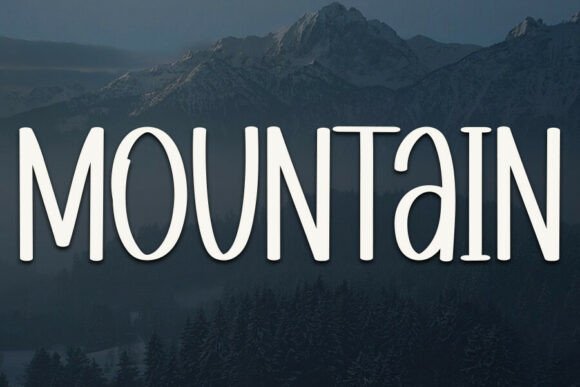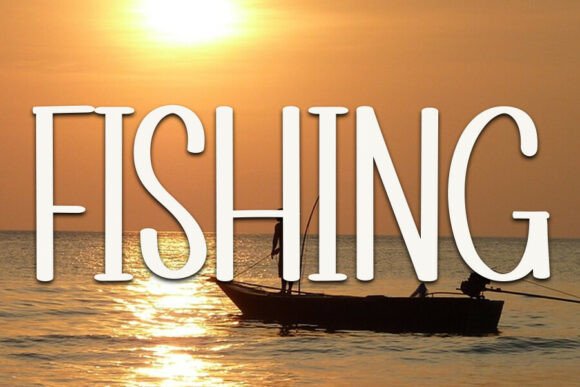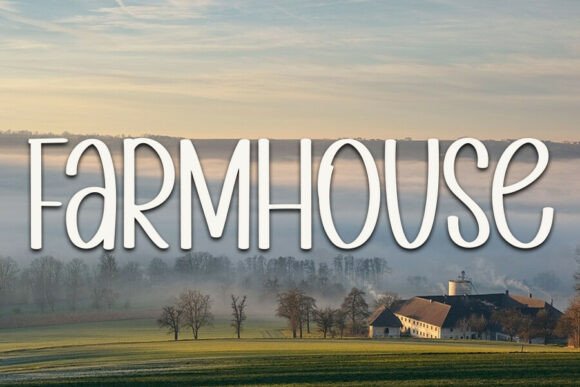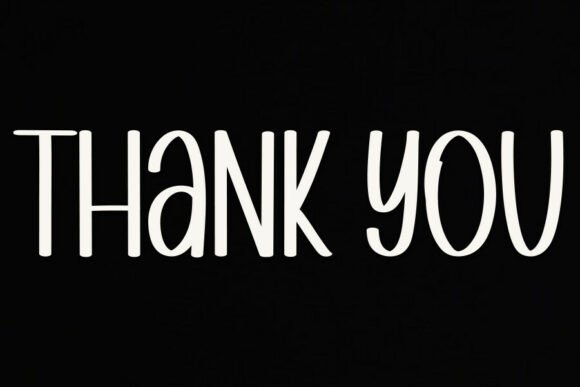
Introducing Cheese Font: The Perfect Blend of Warmth and Authenticity
In the world of typography, fonts play a crucial role in conveying the tone and personality of a brand or design. For designers and crafters looking for a font that exudes warmth, authenticity, and a touch of casual elegance, Cheese Font is an excellent choice. This beautiful, handwritten font is designed to bring a personal and friendly touch to any design, making it perfect for quotes, branding, packaging, and social media posts.
The Charm of Cheese Font
Cheese Font is a casual, handwritten font that boasts smooth strokes, relaxed curves, and naturally balanced letterforms. Its clean and approachable style captures the essence of everyday handwriting, making it an ideal choice for designers who want to add a human touch to their designs. The font’s effortless flow and versatile character ensure that it delivers both readability and charm, making it perfect for a wide range of design applications.
Key Features of Cheese Font
- Smooth Strokes: Cheese Font features smooth, fluid strokes that give it a natural and effortless look.
- Relaxed Curves: The font’s relaxed curves add a touch of elegance and sophistication to its overall appearance.
- Naturally Balanced Letterforms: Each letterform is carefully crafted to ensure that the font is balanced and visually appealing.
- Clean and Approachable Style: Cheese Font’s clean and approachable style makes it perfect for designs that require a friendly and approachable tone.
Cheese Font is an excellent choice for designers and crafters who want to add a personal touch to their designs. Whether you’re working on a branding project, creating packaging for a product, or designing social media posts, this font is sure to impress. Its versatility and readability make it perfect for a wide range of design applications, from quotes and posters to business cards and invitations.
Why Choose Cheese Font?
There are many fonts available that claim to offer a unique and stylish solution for designers. However, Cheese Font stands out from the crowd due to its unique combination of warmth, authenticity, and elegance. Here are just a few reasons why designers and crafters love Cheese Font:
- Unique and Stylish: Cheese Font offers a unique and stylish solution for designers looking for a font that stands out from the crowd.
- Effortless Flow: The font’s effortless flow makes it perfect for designs that require a natural and relaxed look.
- Versatile Character: Cheese Font’s versatile character ensures that it can be used for a wide range of design applications.
- Readability: The font’s clean and approachable style ensures that it is highly readable, even at small sizes.
Tips for Using Cheese Font
To get the most out of Cheese Font, here are a few tips to keep in mind:
- Use it for Headings and Titles: Cheese Font is perfect for headings and titles, where its unique and stylish appearance can really shine.
- Pair it with Other Fonts: Don’t be afraid to pair Cheese Font with other fonts to create a unique and visually appealing combination.
- Experiment with Colors: Cheese Font looks great in a wide range of colors, so don’t be afraid to experiment and find the perfect hue for your design.
In conclusion, Cheese Font is a beautiful, handwritten font that offers a unique combination of warmth, authenticity, and elegance. Its smooth strokes, relaxed curves, and naturally balanced letterforms make it perfect for designers and crafters looking for a font that adds a personal and friendly touch to their designs. With its effortless flow and versatile character, Cheese Font is sure to become a favorite in your design toolkit.